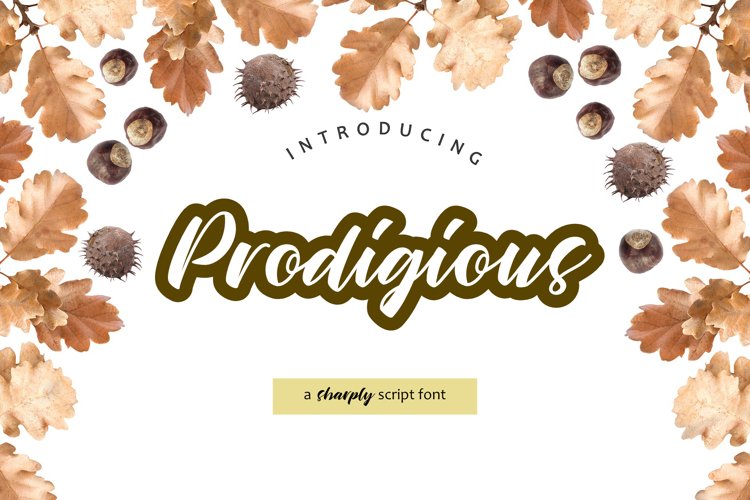
Prodigious is a sharply handwritten script font!
This font is made in a modern style with a very beautiful beginning and ending, elegantly, very casual and suitable for your various design needs Perfect for logo, branding, tittle, social media posts, advertisements, product packaging, product designs, label, photography, watermark, special event, magazine, web design, etc.